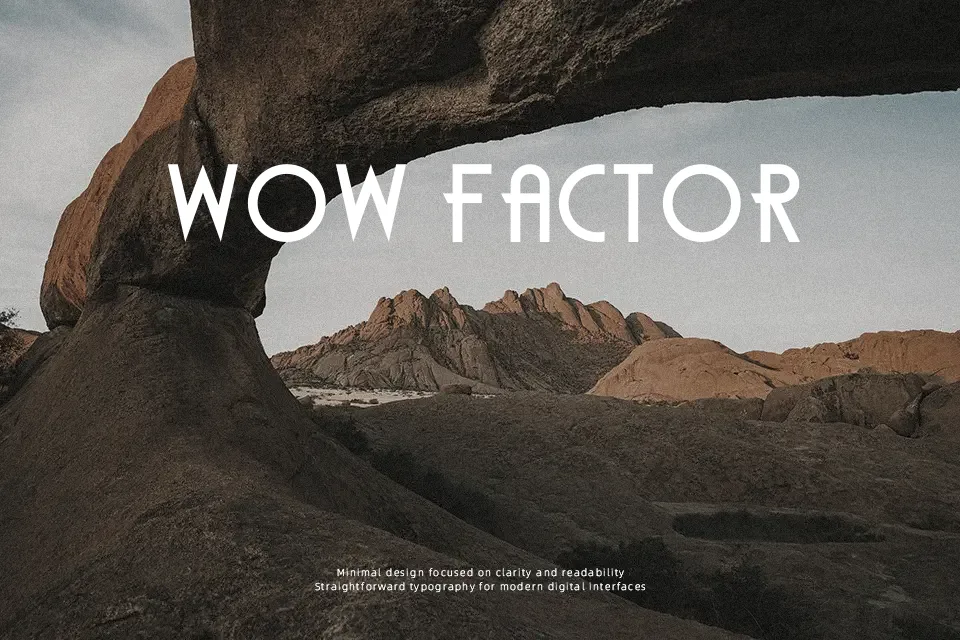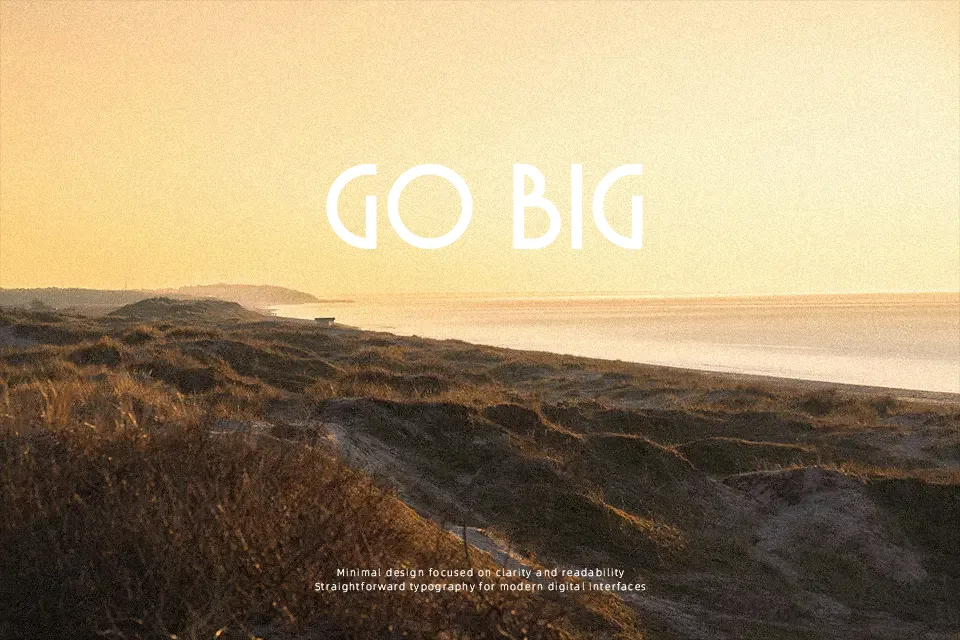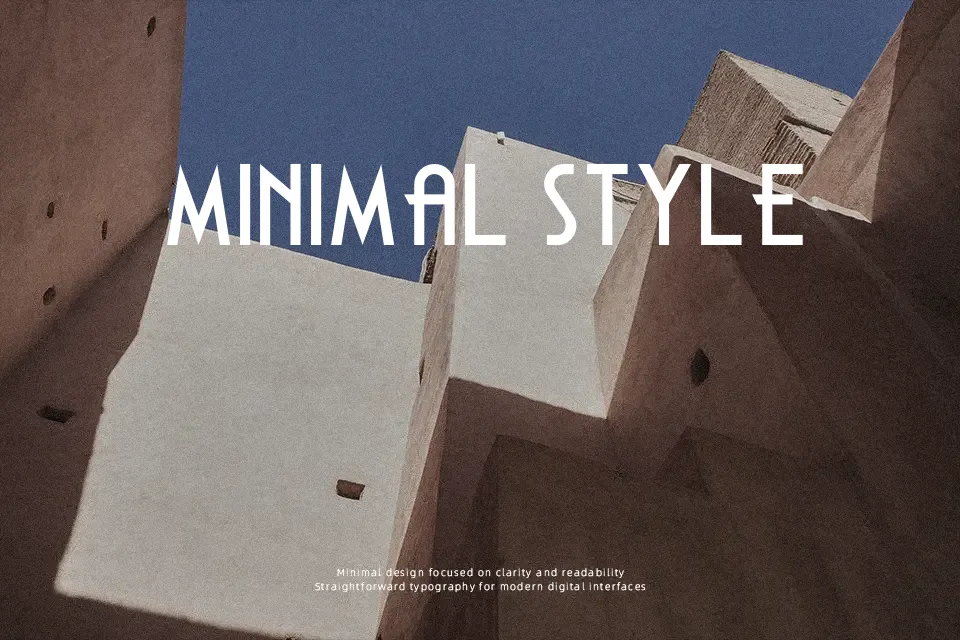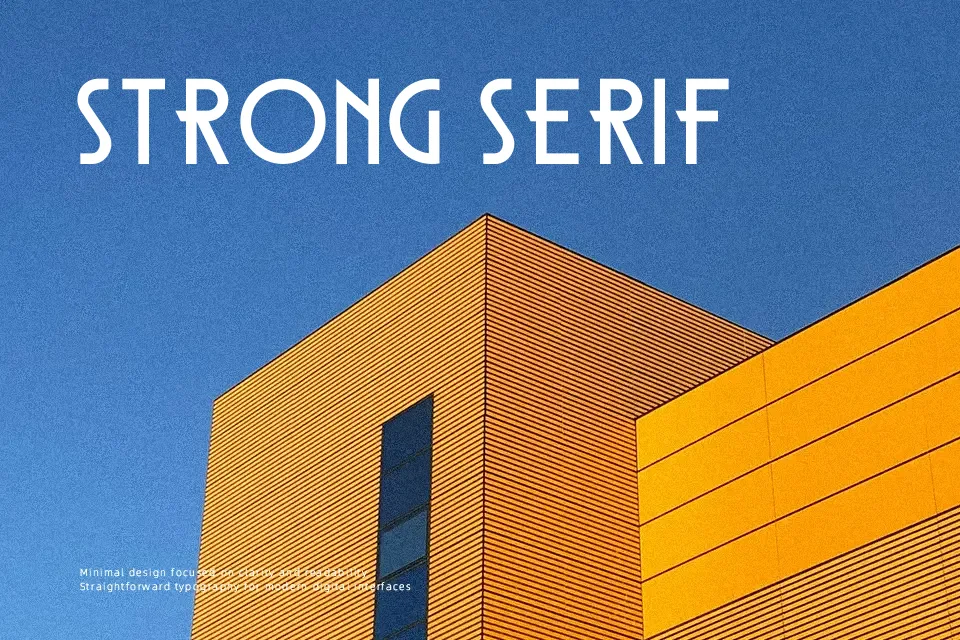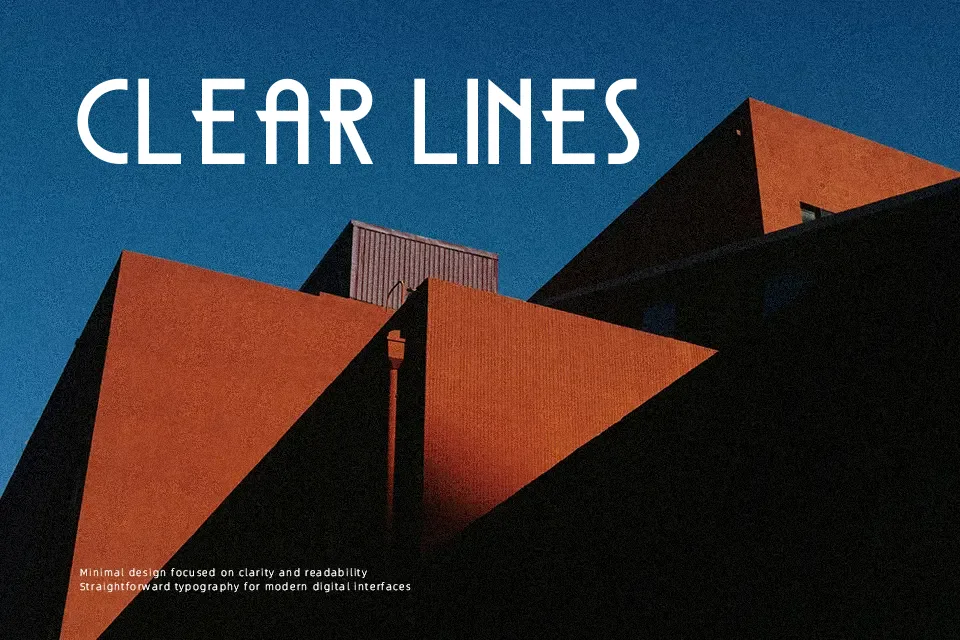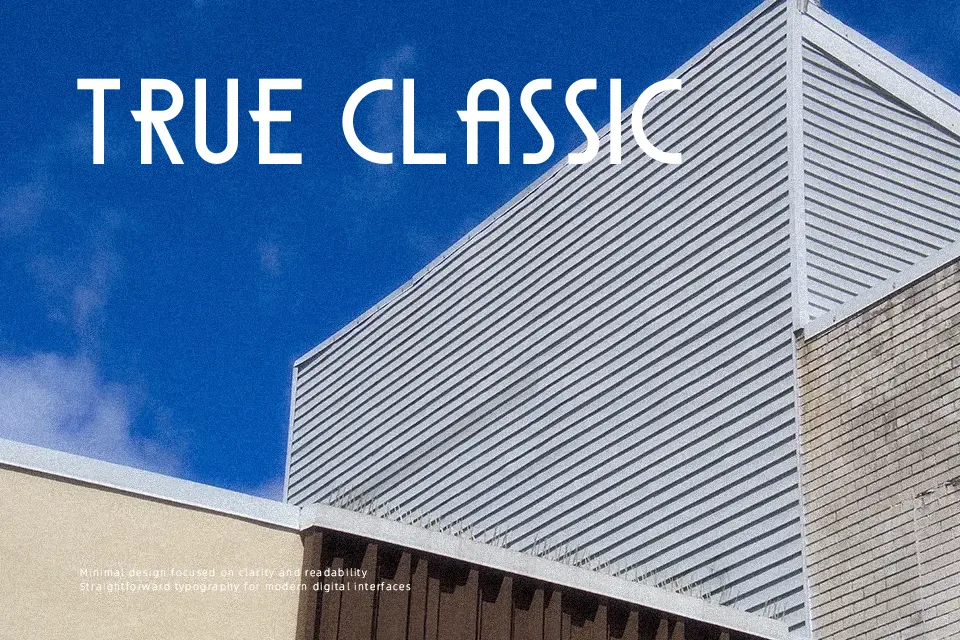
DK Carambola Font
Designed by David Kerkhoff
DK Carambola Font has a streamlined retro look built from tall, narrow letterforms, clean strokes, and wide circular counters that give it an Art Deco flavor without feeling overly ornate. The spacing feels display-driven rather than text-friendly, so it reads best when given room to breathe. It suits poster headlines, cocktail menus, specialty food packaging, and branding that wants a 1920s or old cinema accent. The font works well when the layout needs character but not visual noise. It is less useful for body copy, compact mobile graphics, or projects that need a neutral everyday voice.
poster headlines,vintage cafe branding,menu covers,packaging accents
body text,small UI labels,long paragraphs,formal corporate reports
Perfect for branding, headline, and packaging, with a classic and decorative style.